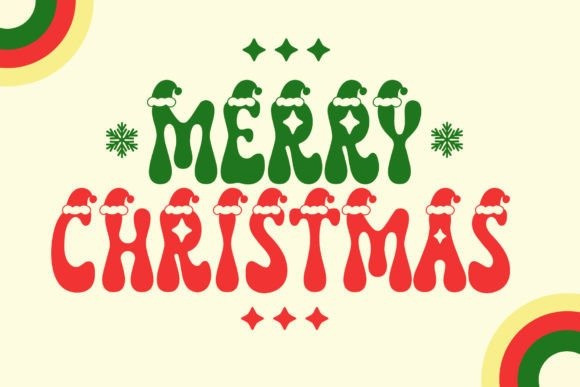
December Christmas Display Typeface
December Christmas Display Typeface is a delightful and whimsical decorative font that encapsulates the joy of the holiday season. Each letter is adorned with charming holiday elements, evoking a sense of festivity and merriment. This font is perfect for adding a playful touch to your Christmas-themed projects, from greeting cards to posters. Spread the holiday cheer with December Christmas!